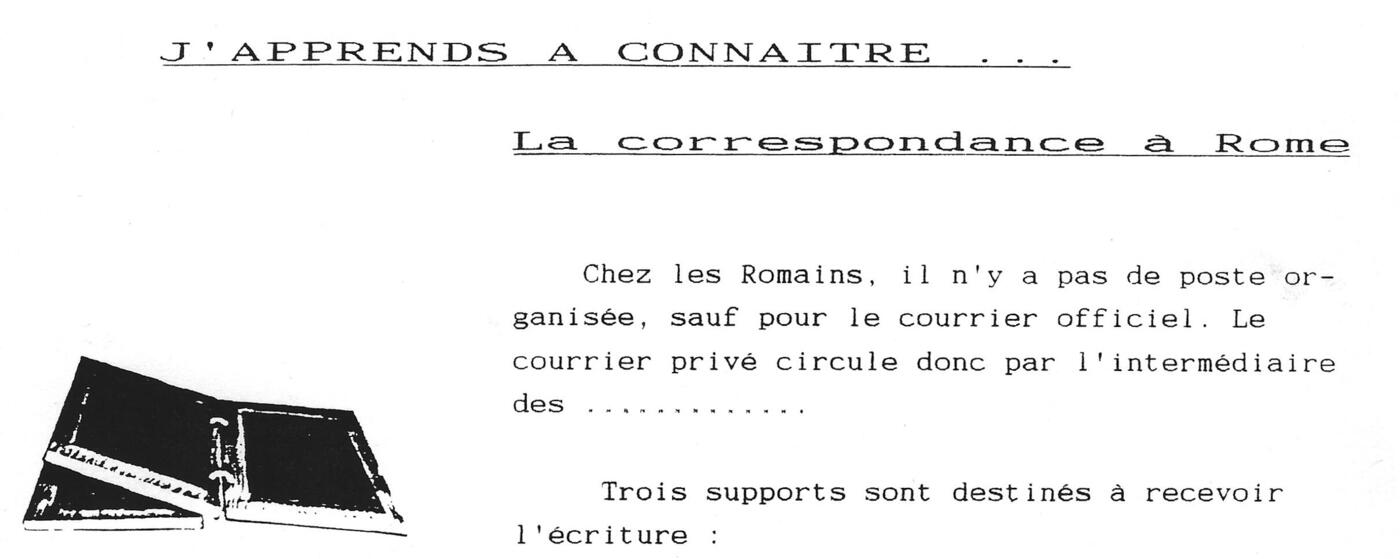
Old electronic typewriter font needed for a project
Could someone please help me identify this font ?
It was pretty common on electronic typewriters from the late 80'/90's. Often combined with a Courier serif type font.
What's the name of that font (big titles seems like an ultra wide/expended familiar serif font) ? Has it been digitised ?
Sorry, but this forum deals mostly with typefaces used for traditional print and digital work—typewriter fonts are a specialty unto themselves, and while some were recreated as metal typefaces back in the day and as digital faces within the last 40 years or so, I'm not finding a match to this one.
Oddly enough, the Latin characters of the system font MS Mincho come very close to the smallest type in your sample.
the Latin characters of the system font MS Mincho come very close to the smallest type in your sample.
And it could well be it (or, rather, the typeface from which the Latin portion of MS Mincho was lifted/drew inspiration), since the sample seems from some kind of printer rather than from an electric typewriter.
I found a pretty close match to the smaller font I posted : since I have the original copy I scanned for the samples, I found that Courier 10 Pitch W07 is a solid match when I compared the printouts side by side. However no exact match was found for the expanded/wide font.
In the meantime, I found TA Regresso Pro Little Light that comes pretty much close to the wide expanded fount from the sample. 😀
It is not a perfect match but it is pretty good !